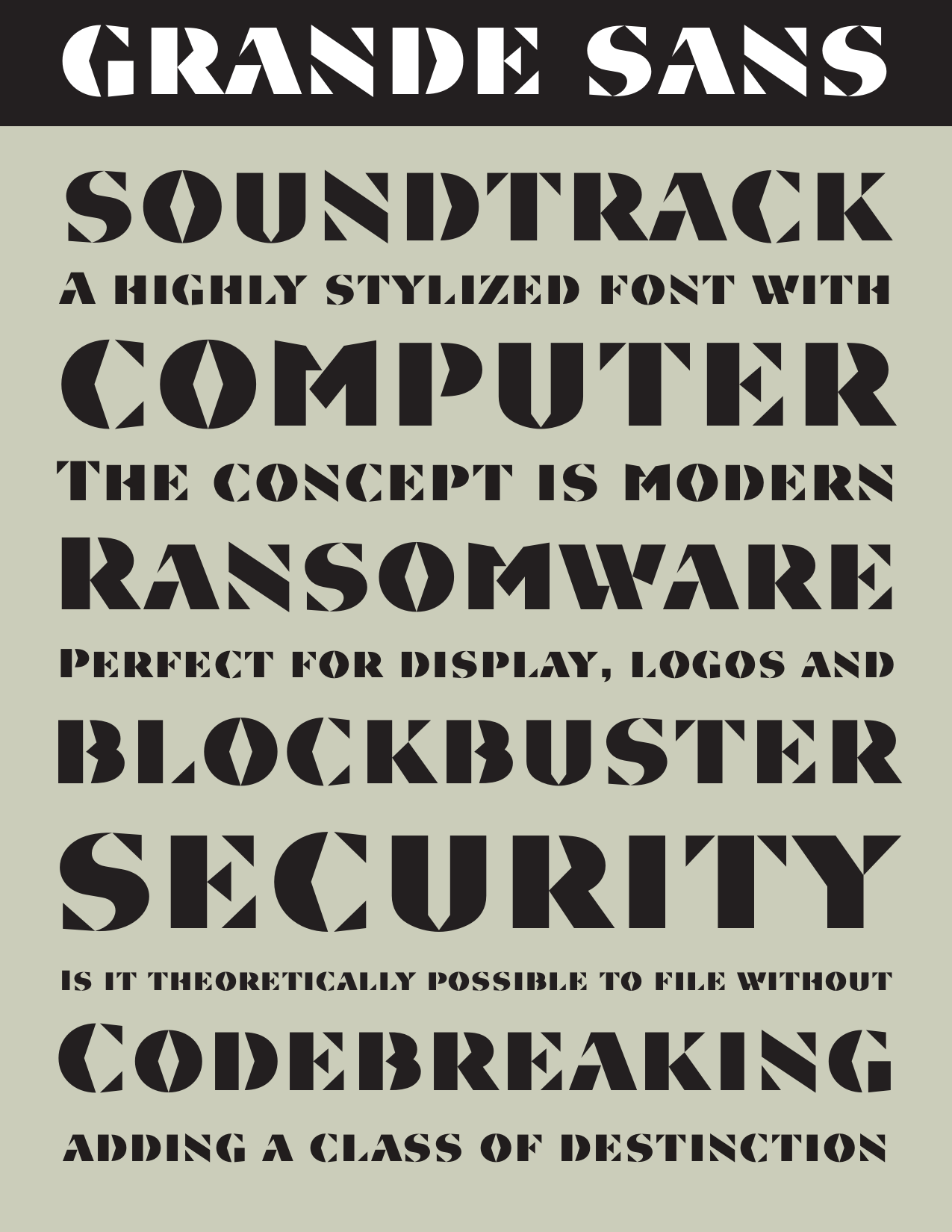
Grande Sans
Say hello to Grande Sans—a geometric typeface that features highly stylized capitals with sharp corners, circular forms and generous proportions. Specifically created for visual impact—use Grande Sans when you want your words to stand out from the rest of the crowd. The concept is modern, futuristic and non-traditional. Perfect for display text, logos and headlines.
The development of Grande Sans started in 1997, inspired by Alex Kaczun’s best selling grotesque font family called Contax Pro. Grande Sans is specifically introduced here as a black weight, but Alex plans to expand the design to include many weights, styles and alternative design treatments. Stay tuned!